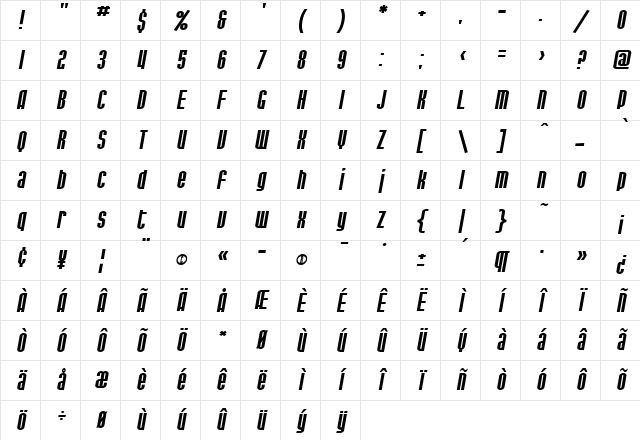
SF Port McKenzie Extended Italic
Design Context for SF Port McKenzie Extended
SF Port McKenzie Extended is a composed and adaptable typeface that performs quietly and consistently across a wide range of design contexts. The slanted form adds forward momentum and visual energy.
Pro Tip: Use SF Port McKenzie Extended for emphasis, pull quotes, and subheadings where its slanted energy can add rhythm to the layout.